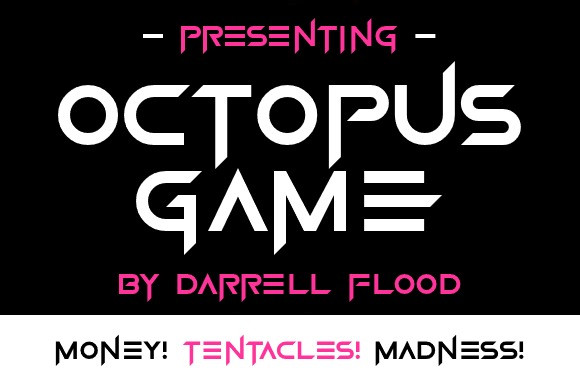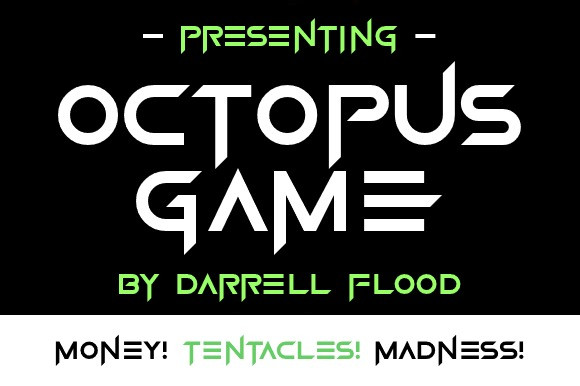
Octopus Game Font
Octopus Game Font a slick, modern font combining both curves and sliced angles in an interesting way. Perfect for science fiction projects, futuristic settings and general title use!